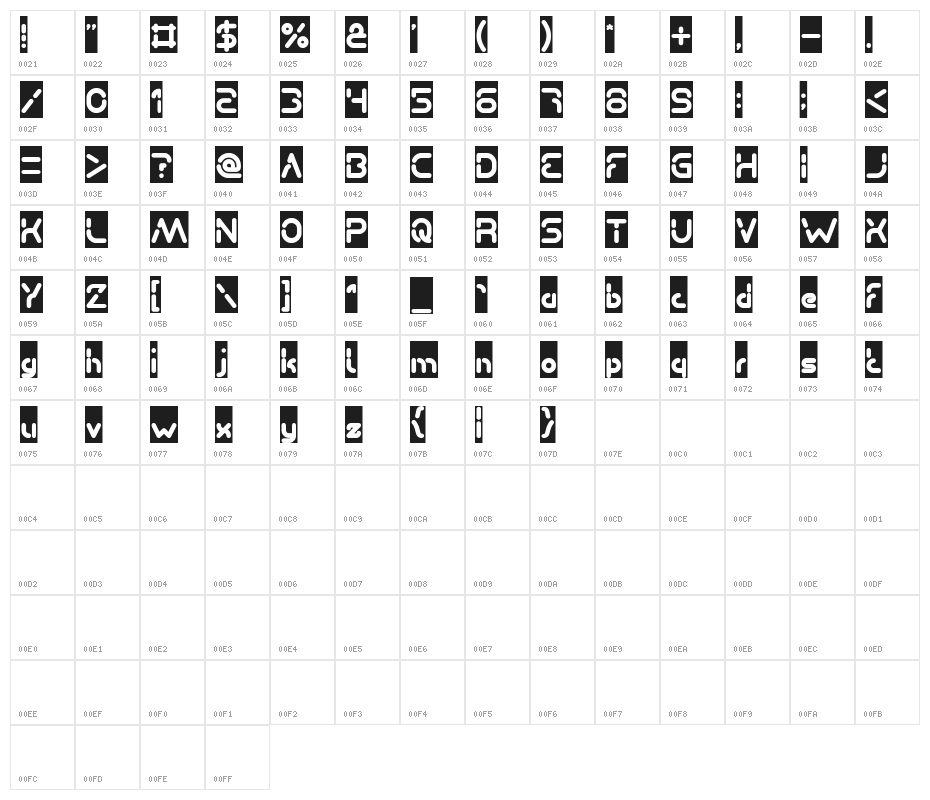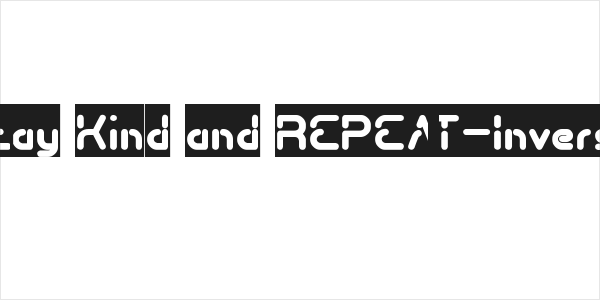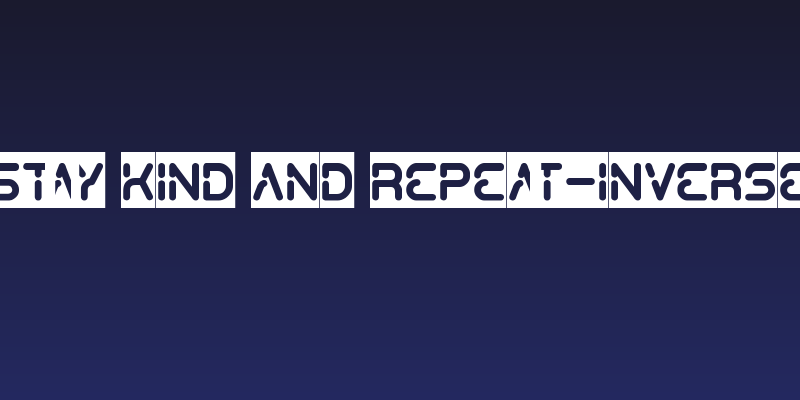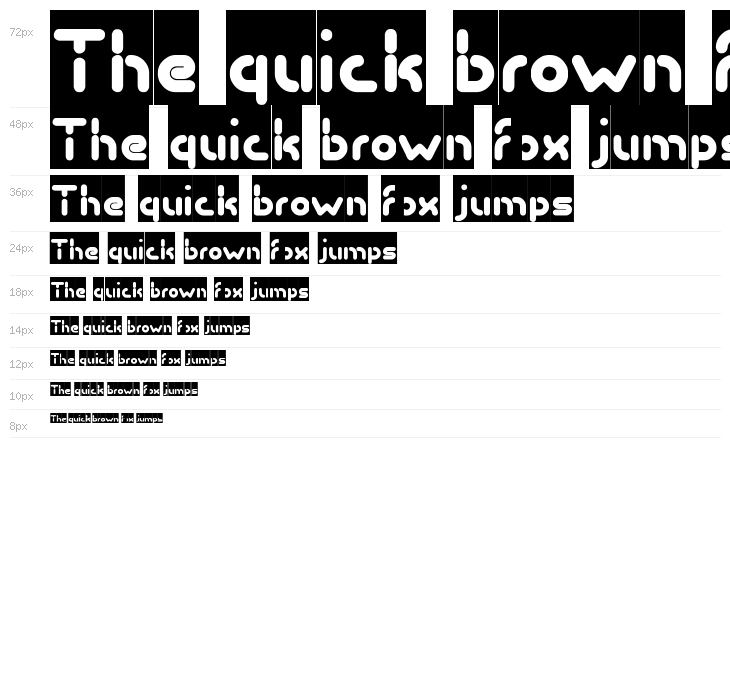
Stay Kind and REPEAT-Inverse Font
Stay Kind and REPEAT-Inverse Description
This font features a modern and futuristic design with a unique, rounded style. The characters are composed of bold, geometric shapes with consistent stroke widths, creating a cohesive and visually striking appearance. The uppercase and lowercase letters maintain a uniform height, contributing to a clean and organized look. The numbers and special characters follow the same design principles, ensuring a harmonious overall aesthetic. The font's distinct style makes it suitable for projects that require a contemporary and innovative touch.
| Proposed Projects | Ideal for tech branding, futuristic posters, digital interfaces, and modern advertising campaigns. |